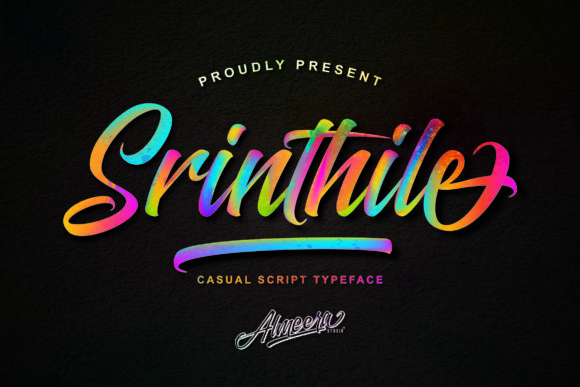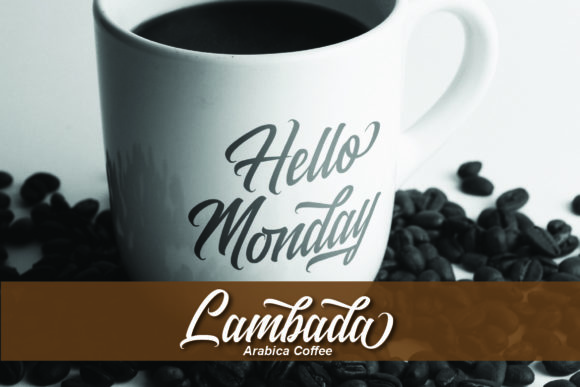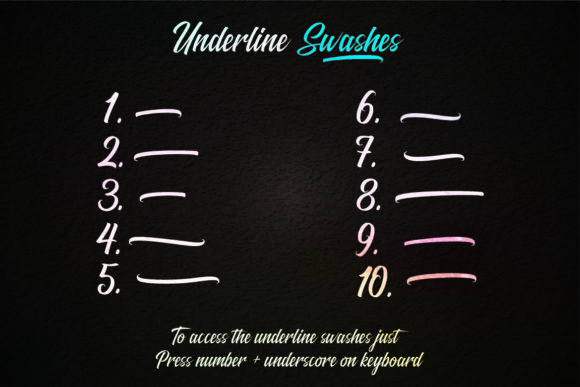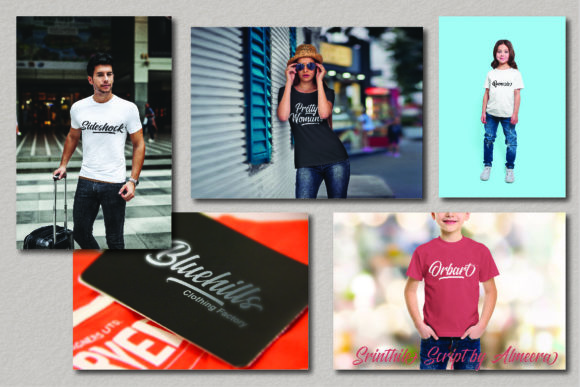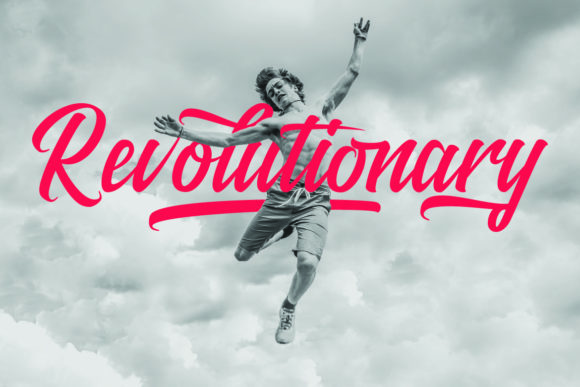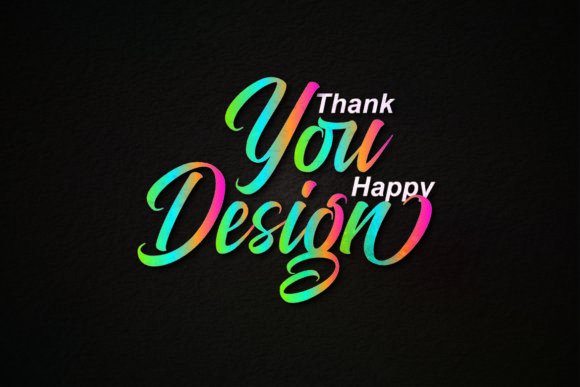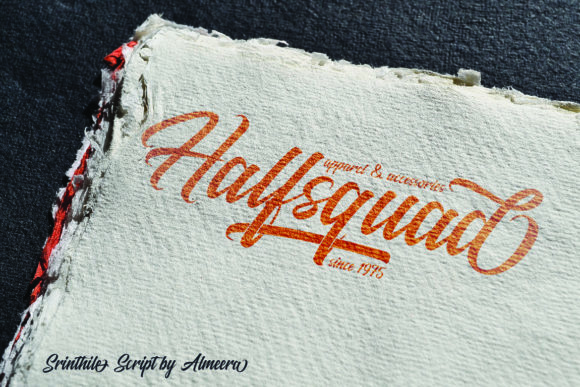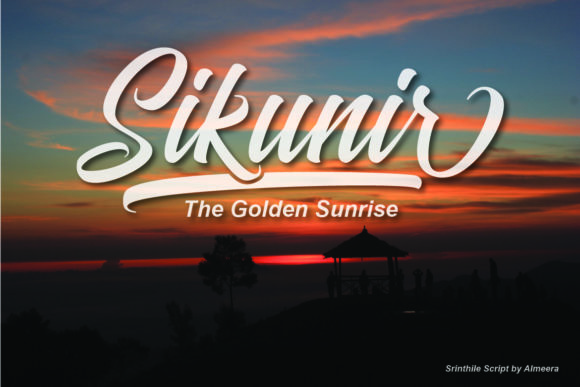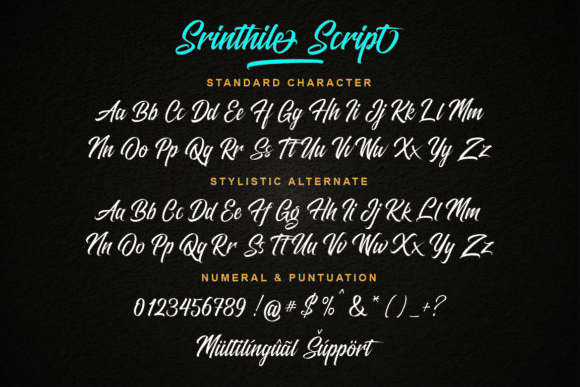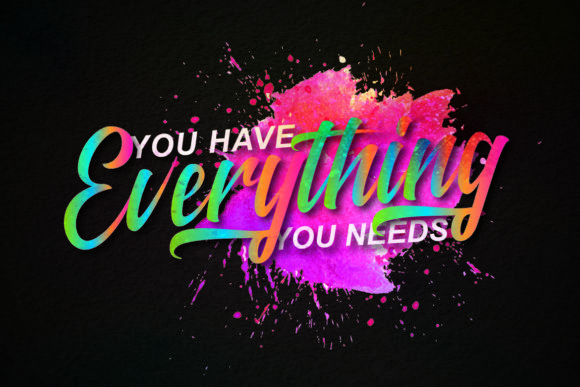
Srinthile Script Font
About Srinthile Script Font
Srinthile is a casual and fun handwritten font with a cool feel. Use it to add a personal flavor to any design project!